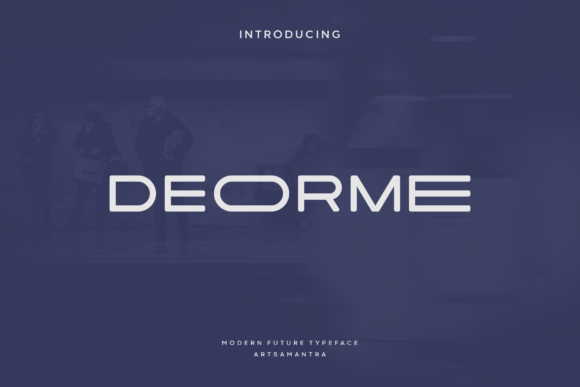
Dive into the captivating world of Deorme, a display font that will ignite your creativity and elevate your designs to new heights. Its unique all-caps style, adorned with two distinct uppercase variations, unlocks a realm of possibilities for your projects. Whether you're crafting a captivating logo, designing mouthwatering food packaging, or creating elegant invitations, Deorme's versatility will inspire your imagination. Unleash the dynamic allure of Deorme by mixing its two uppercase sizes, creating a captivating visual rhythm that will leave a lasting impression.
Picture Deorme's timeless elegance gracing your magazine covers, its bold presence commanding attention on brochures, and its playful charm adding a touch of whimsy to birthday cards. Let Deorme become the cornerstone of your design endeavors, transforming ordinary projects into extraordinary creations. Its ability to blend seamlessly with other design elements ensures harmonious integration into your existing aesthetic.
Don't let this font collection pass you by. Embrace the power of Deorme and watch your designs blossom into masterpieces that captivate and inspire. Its intuitive nature makes it a joy to use, allowing you to effortlessly bring your creative visions to life. Each character is a testament to the font's unwavering quality, ensuring crisp and clear results that will make your designs shine.
As a display font, Deorme excels in capturing attention, making it an ideal choice for headlines, posters, and any design element that demands impact. Its bold presence will command attention, drawing eyes to your message and leaving an unforgettable impression. Whether you're aiming for a sophisticated or playful tone, Deorme's versatility empowers you to convey your message with style and precision.
Embark on a creative journey with Deorme, a font that will ignite your imagination and elevate your designs to new heights. Its captivating all-caps style, dynamic uppercase variations, and seamless integration will transform your projects into works of art. Embrace Deorme and unleash the boundless possibilities that await.